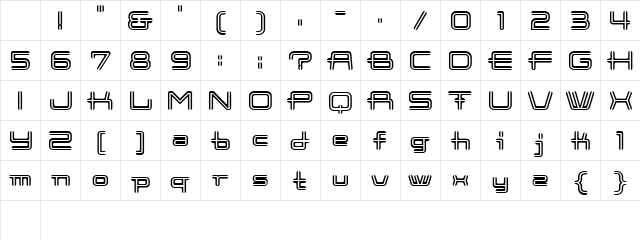
Complete Cootnew Stripe glyph index. Displaying only characters natively supported by Cootnew Stripe font.
Cootnew is a composed and adaptable typeface that performs quietly and consistently across a wide range of design contexts.